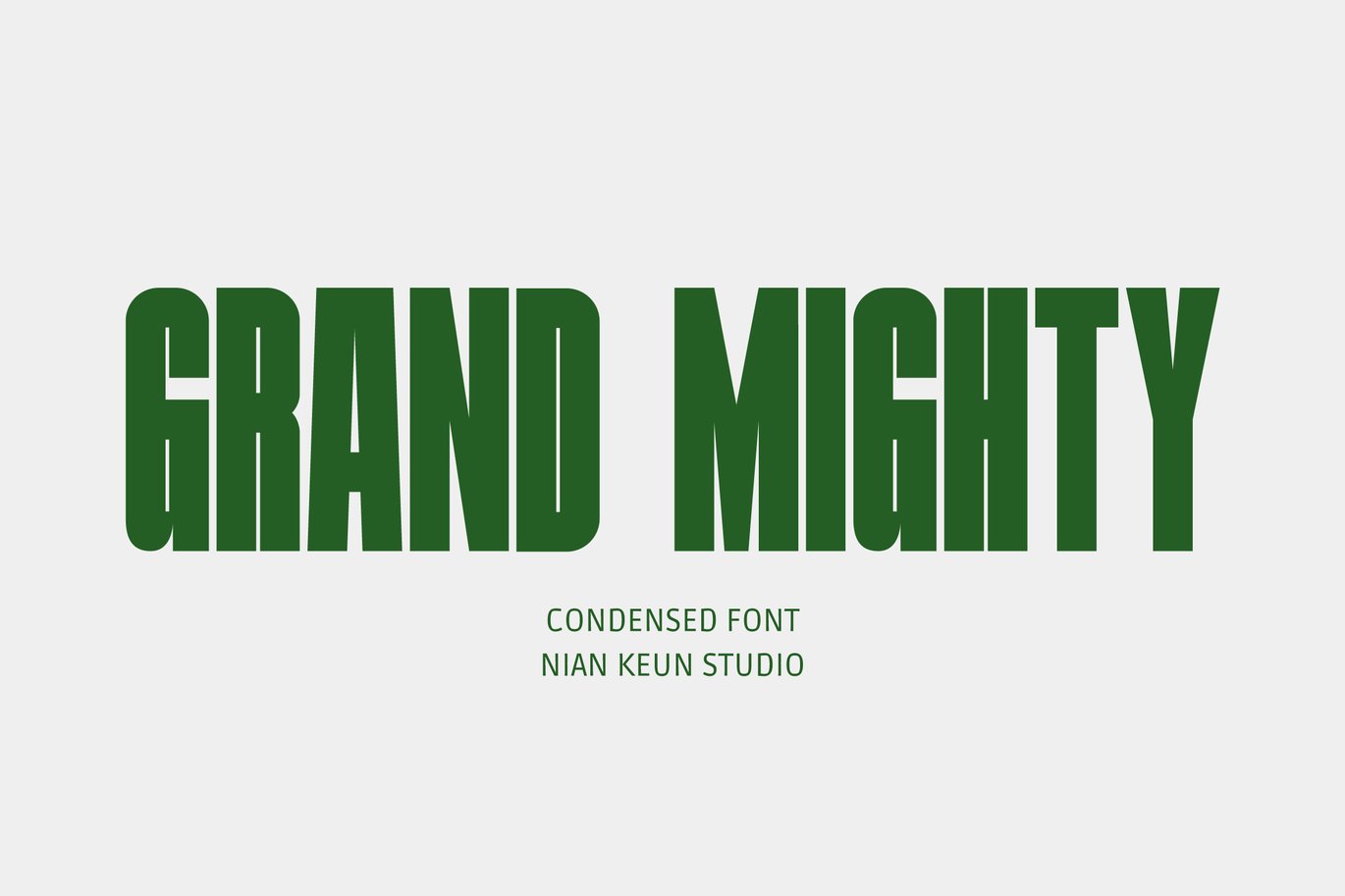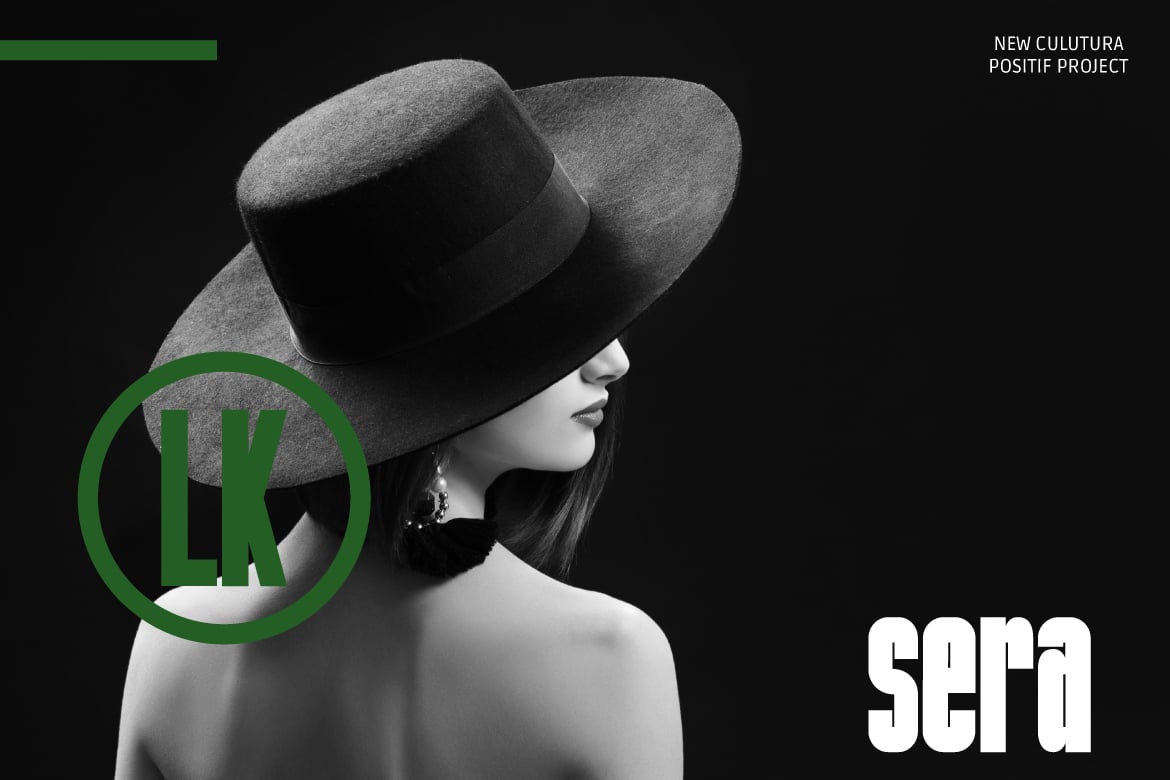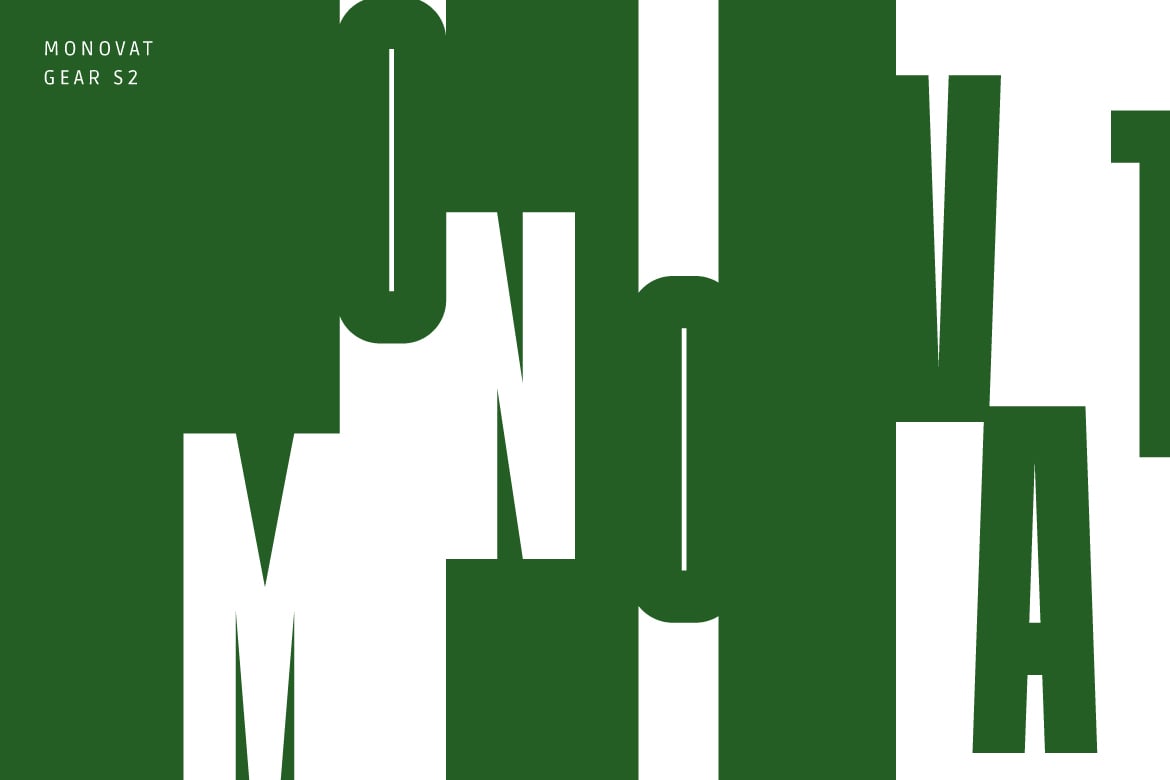
Grand Mighty – Condensed Font
Grand Mighty – Condensed Font is a versatile typeface ideal for various projects, including logos, branding, posters, blog headers, advertisements. The free version includes a full set of uppercase and lowercase letters, available in OTF, TTF format.
Grand Mighty – Condensed Font
Grand Mighty - Condensed Font Preview
Grand Mighty - Condensed Font Sample
Grand Mighty - Condensed Font Character Map